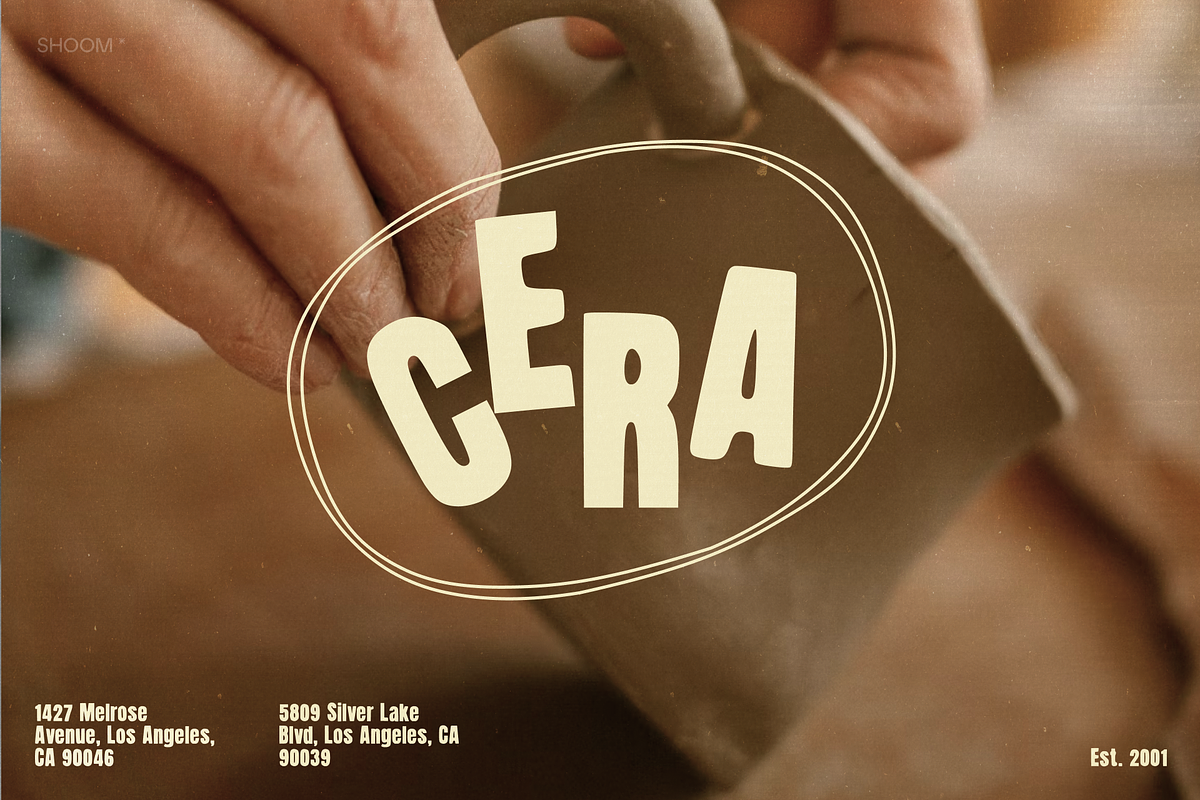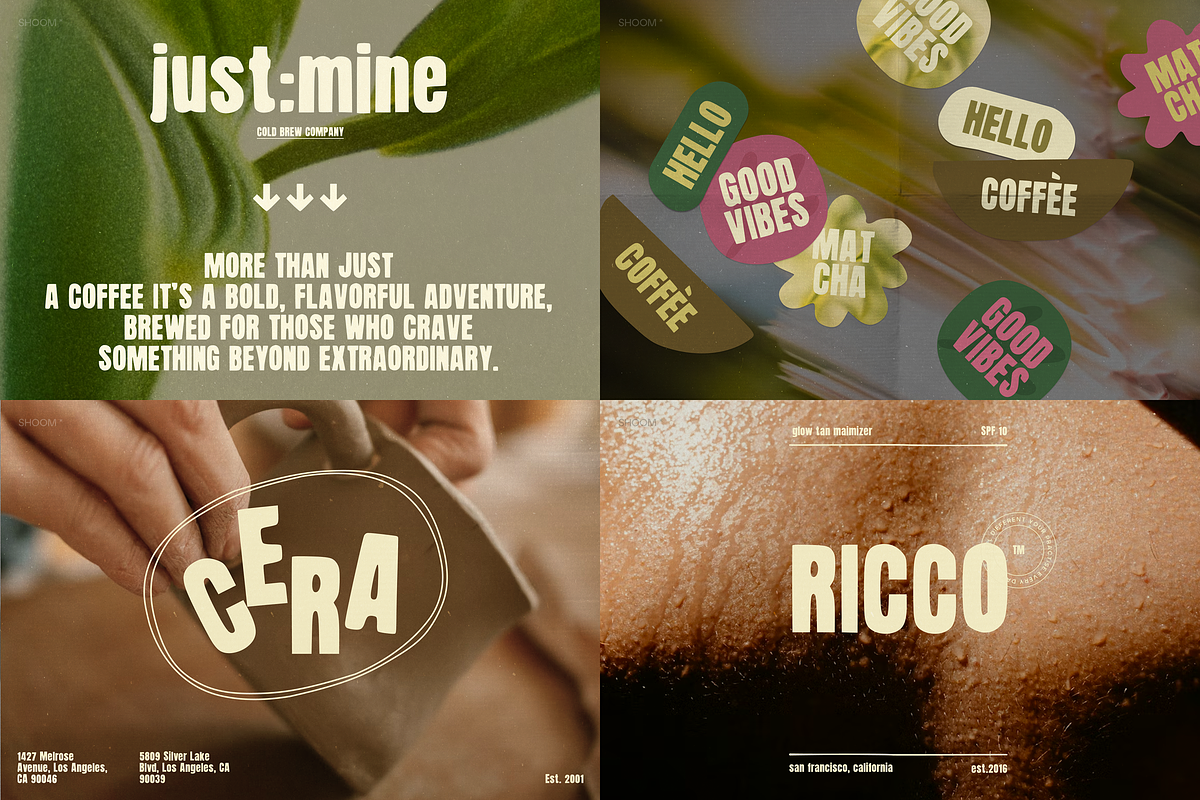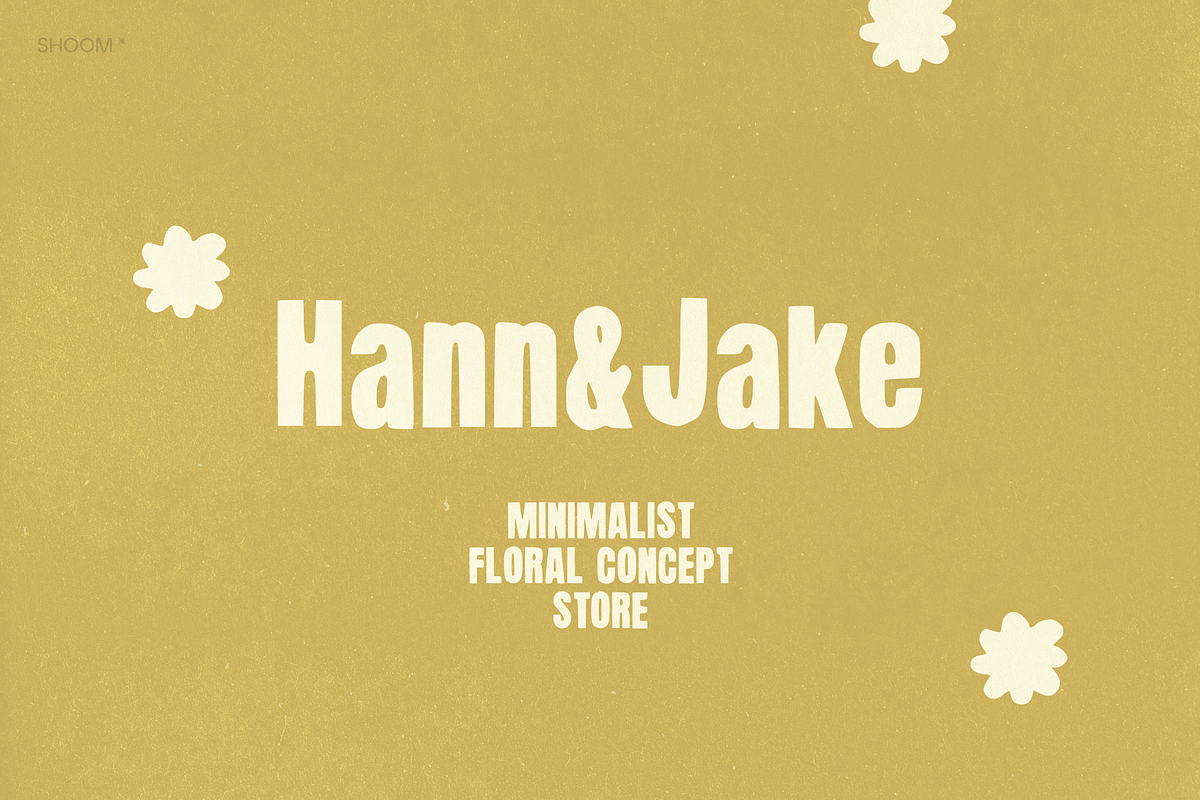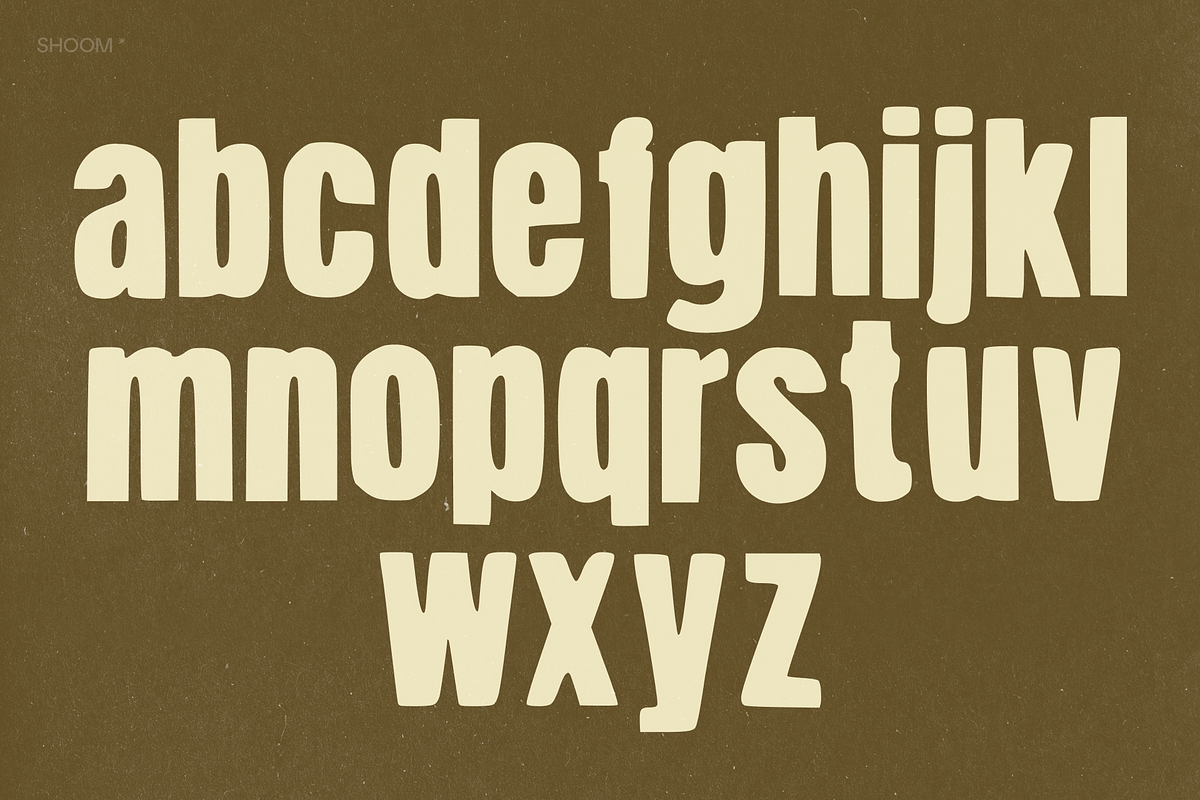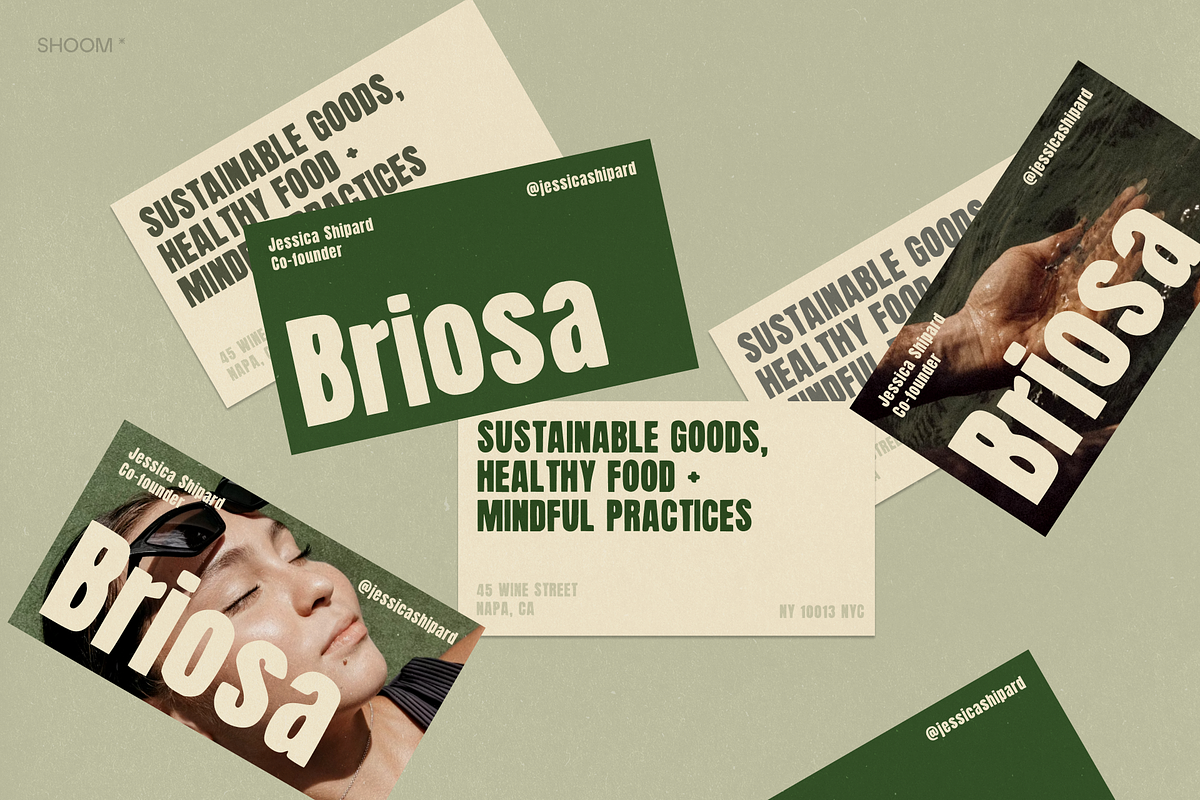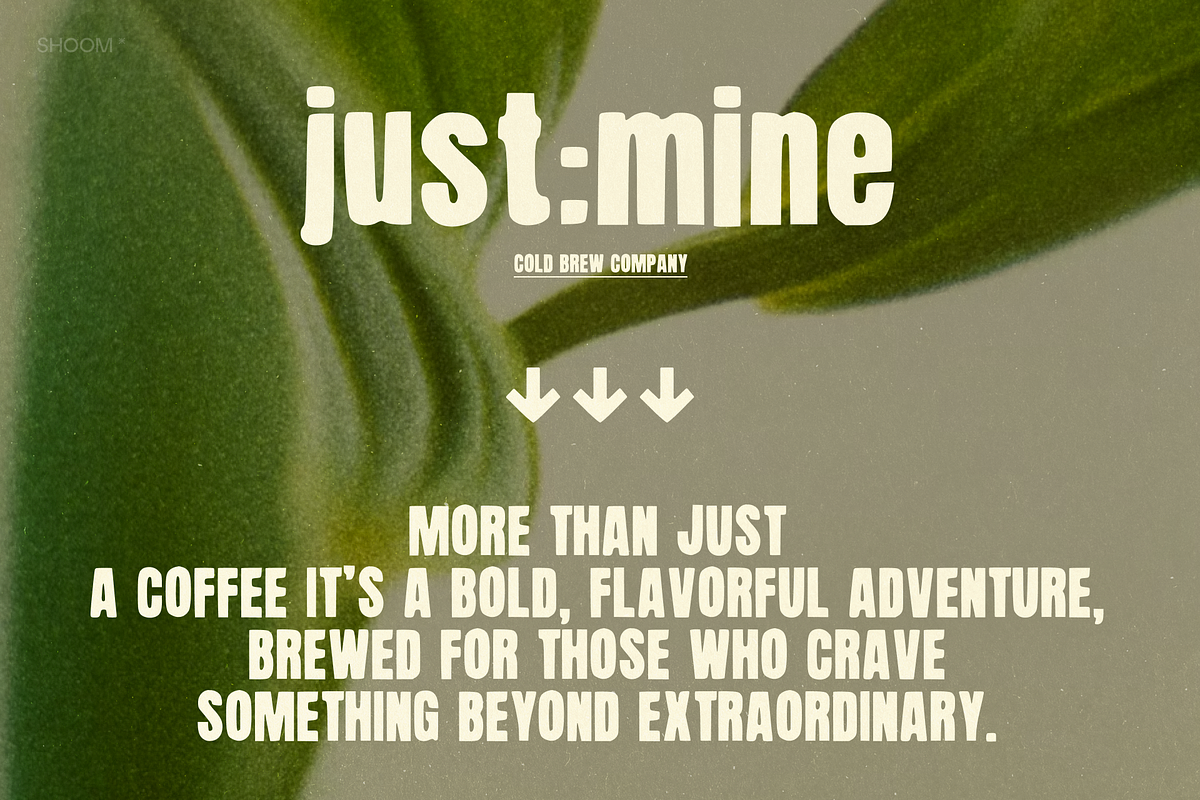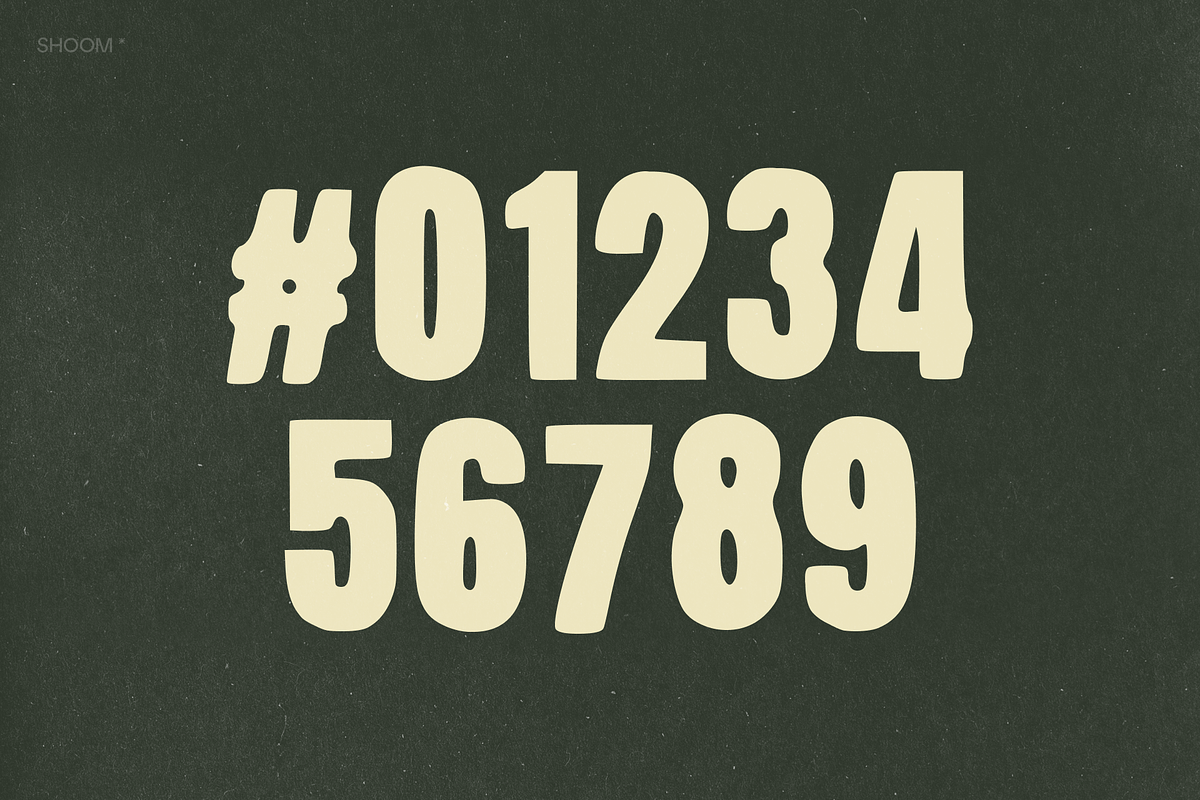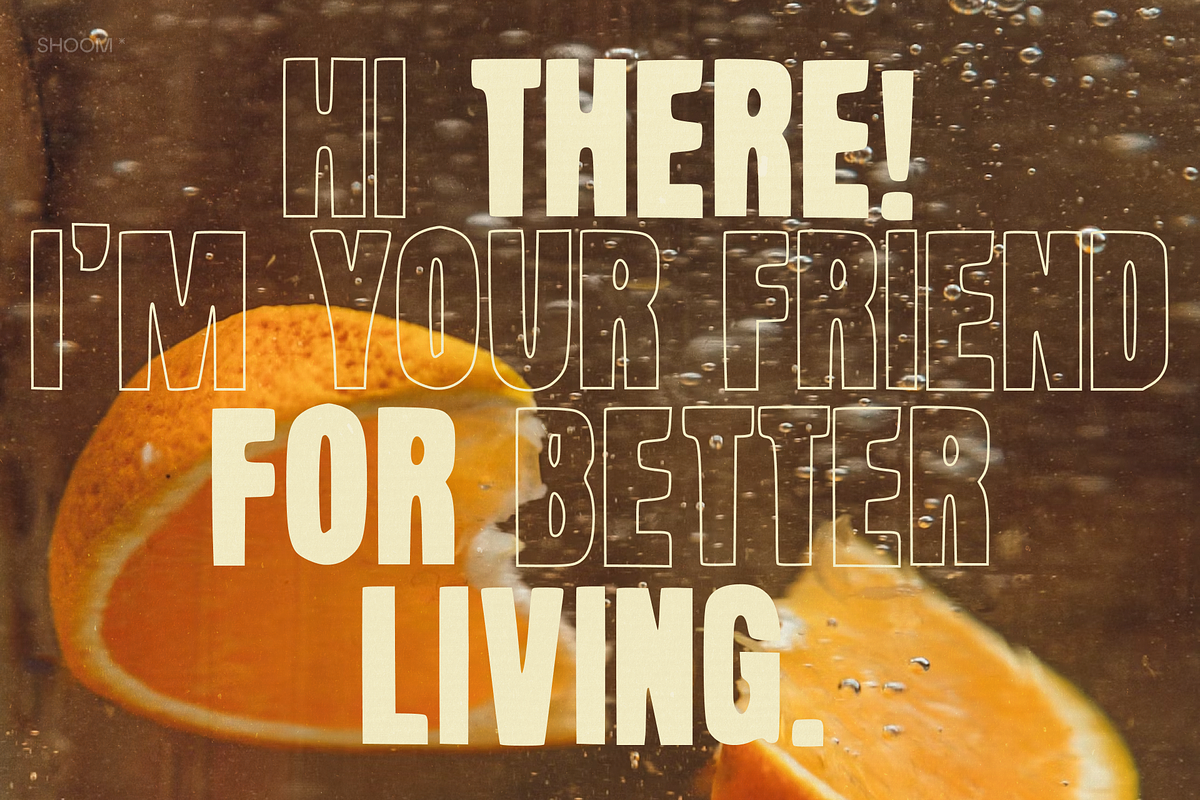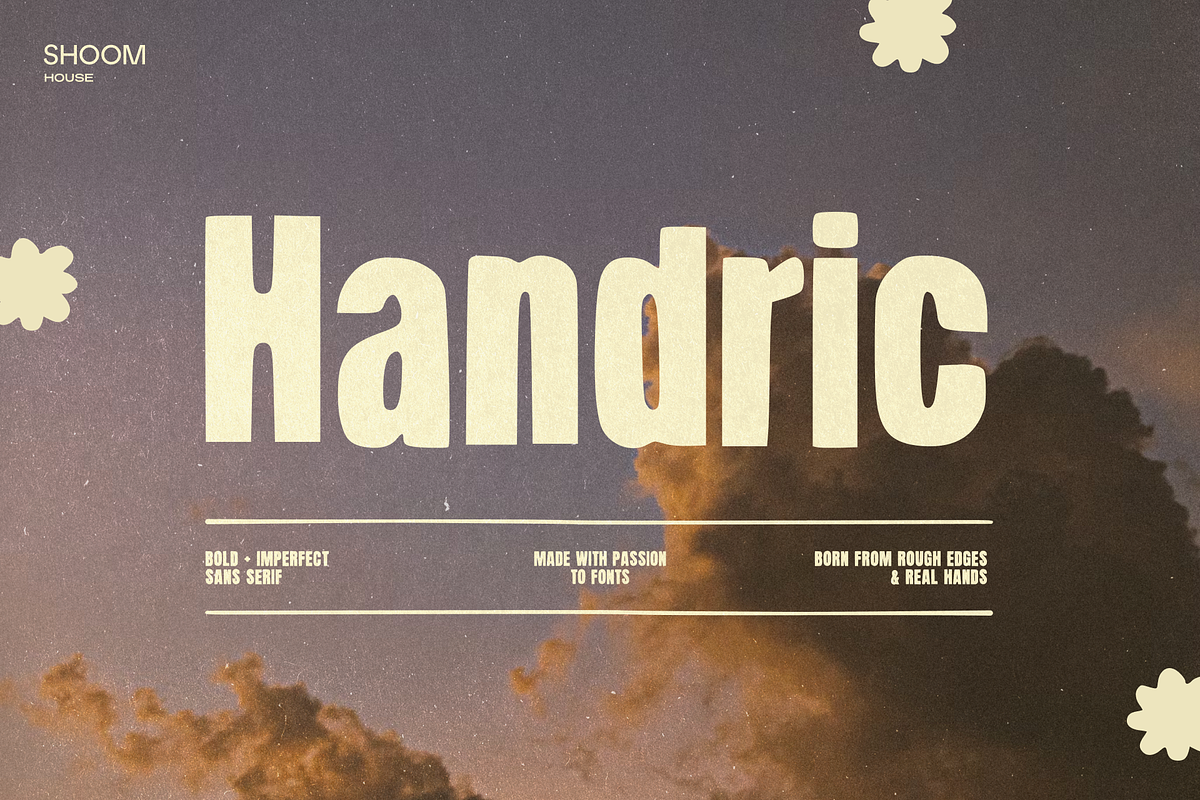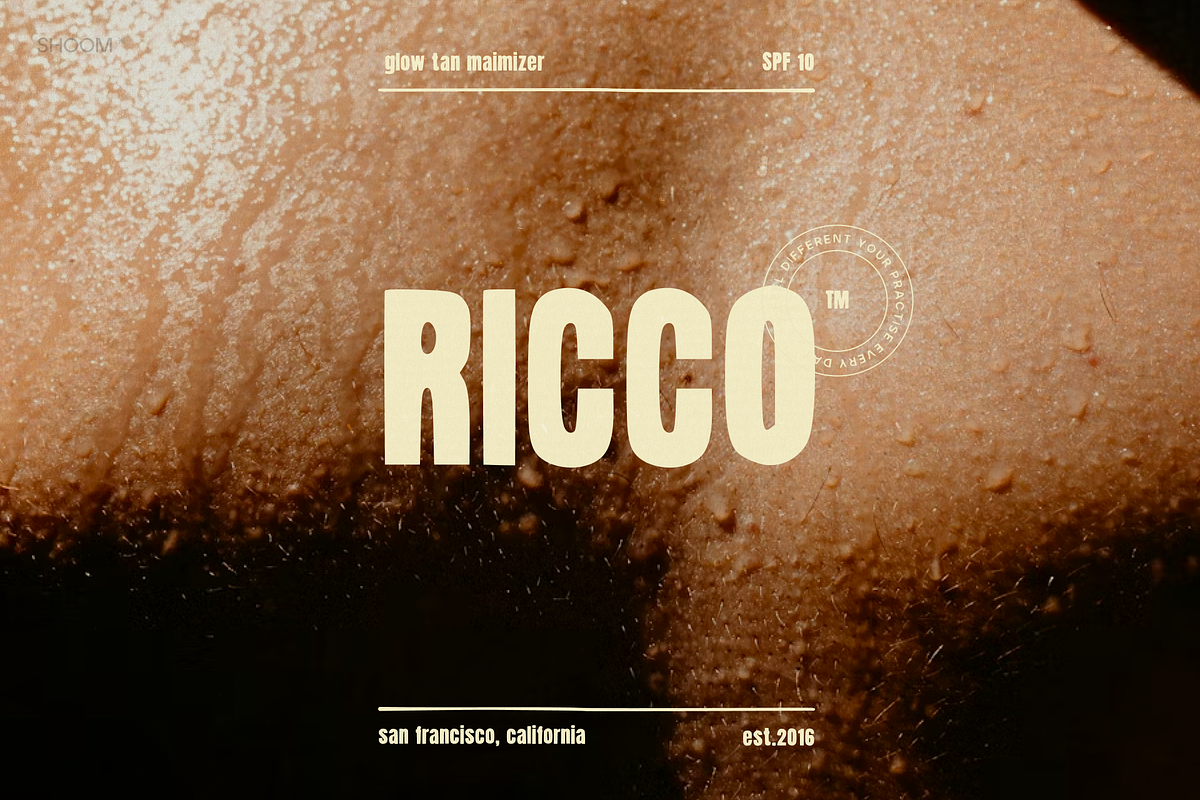
Handric - Bold & Rough Sans Serif
✽ Meet sans serif born from rough edges and real hands.
Raw, imperfect, and full of character, it carries the texture of real ink and the honesty of handmade craft. Every stroke feels alive: uneven yet confident, like letters carved by hand rather than drawn by rule. Handric brings warmth to modern design: perfect for packaging, quotes, logos, and projects that need strength wrapped in humanity. It’s not about perfection, it’s about presence.
- Uppercase & lowercase English alphabet
- Numbers & punctuation symbols